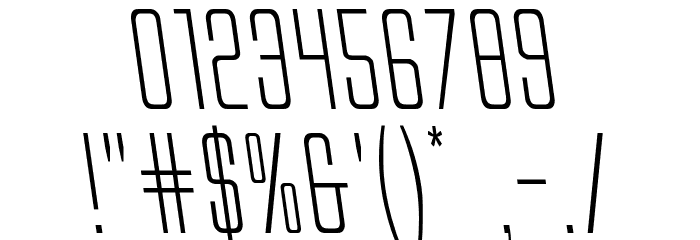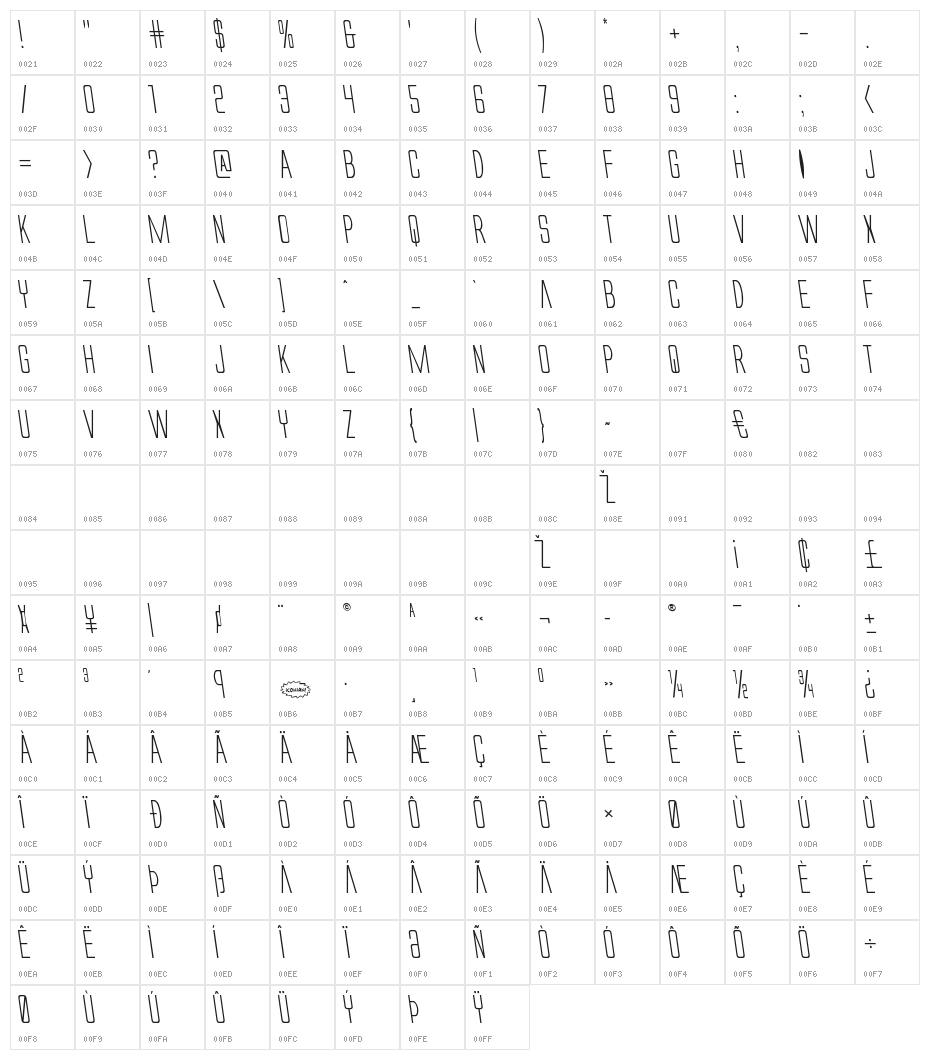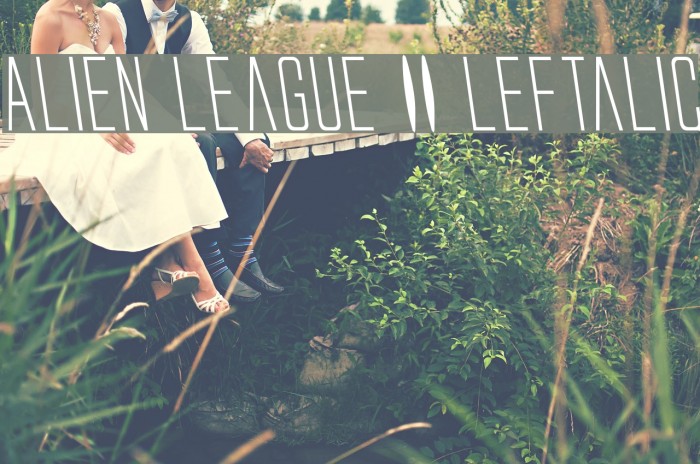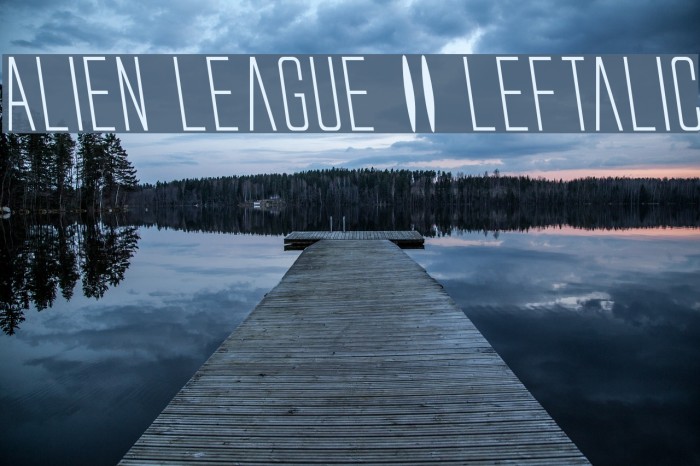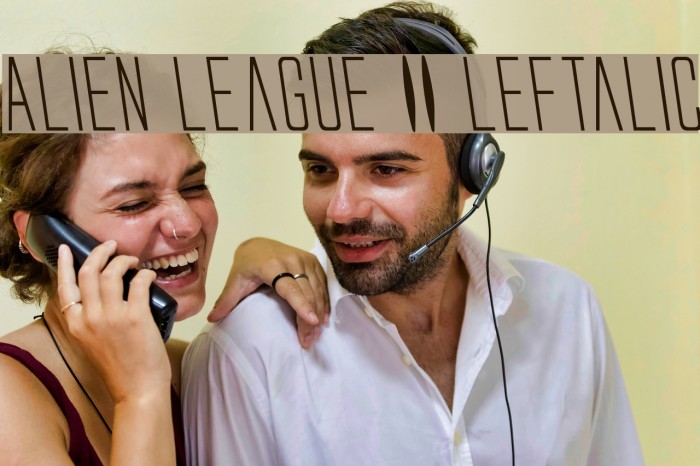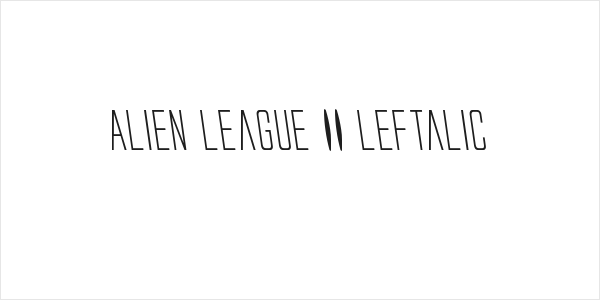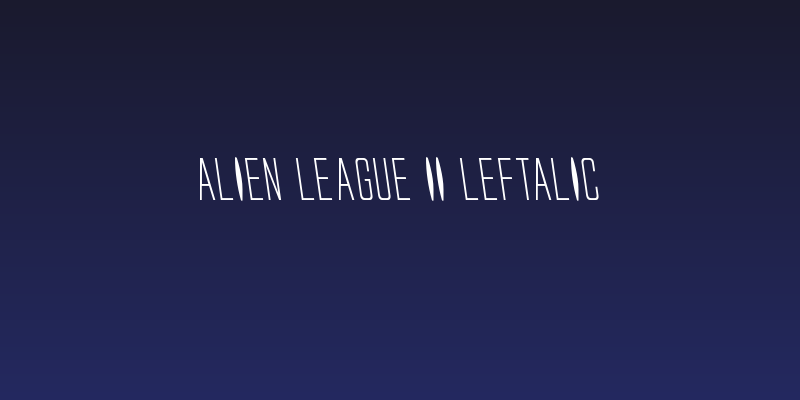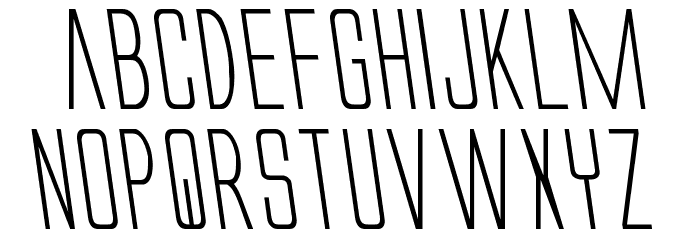
Alien League II Leftalic Font
Alien League II Leftalic Description
This font features a futuristic and sleek design with elongated and narrow letterforms. The characters are slightly slanted to the left, giving a dynamic and forward-moving appearance. The strokes are consistent in width, creating a uniform and modern look. The uppercase and lowercase letters maintain a cohesive style, with a distinct geometric influence. The numerals and special characters complement the overall aesthetic, making it suitable for projects that require a contemporary and edgy feel.
| Proposed Projects | Ideal for sci-fi themed posters, tech branding, video game titles, and modern advertising. |